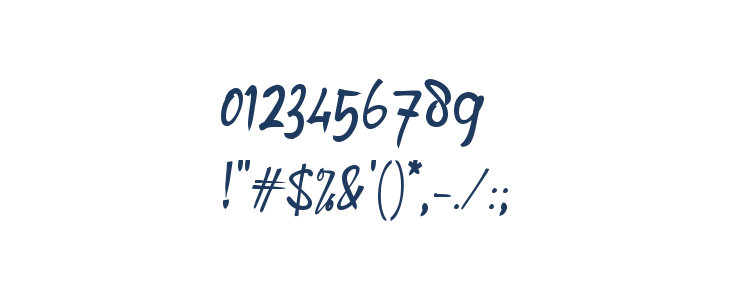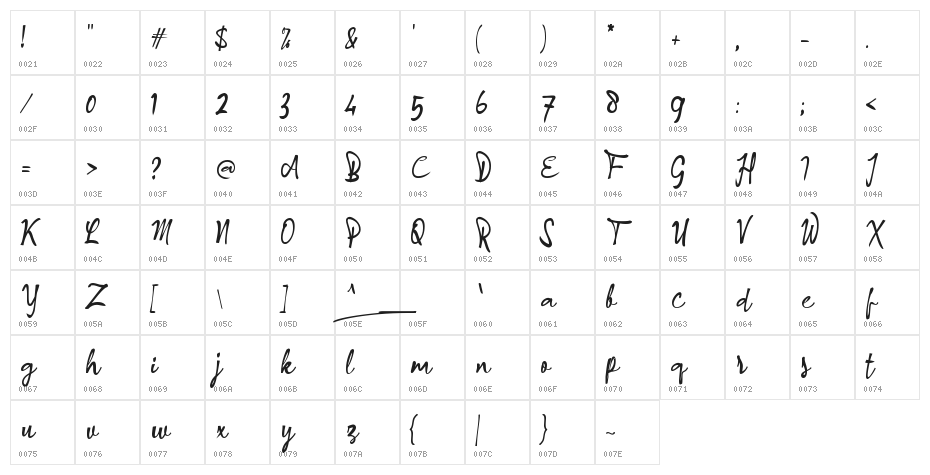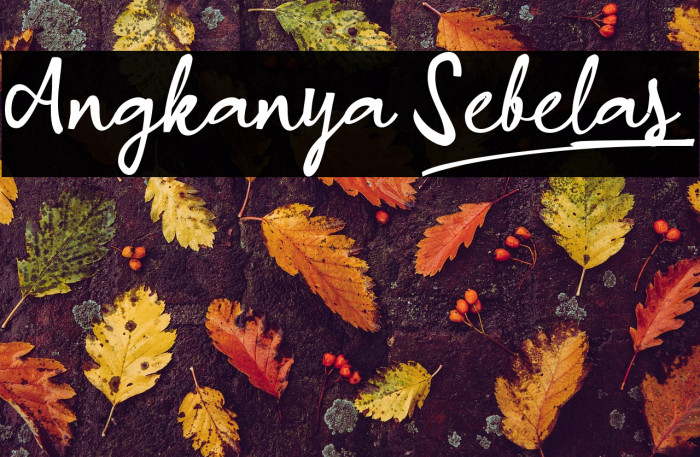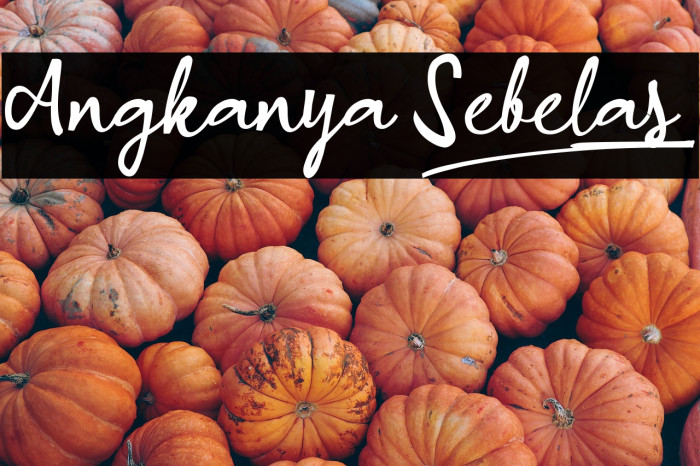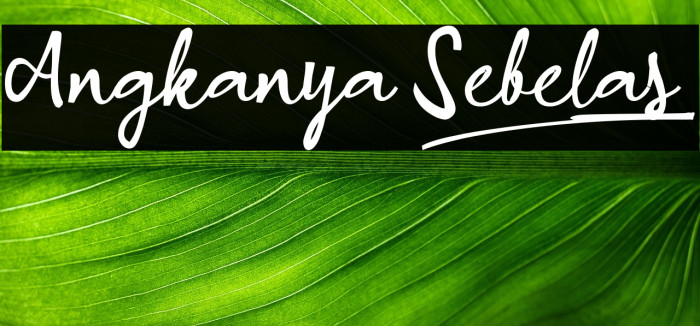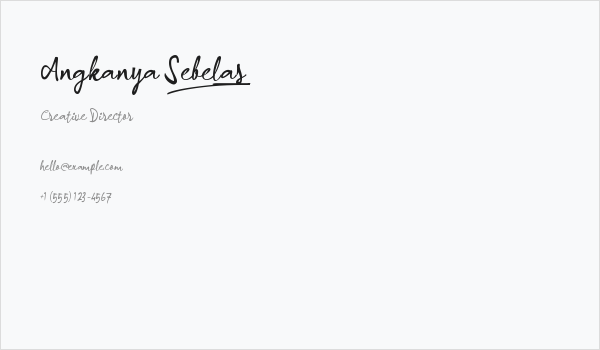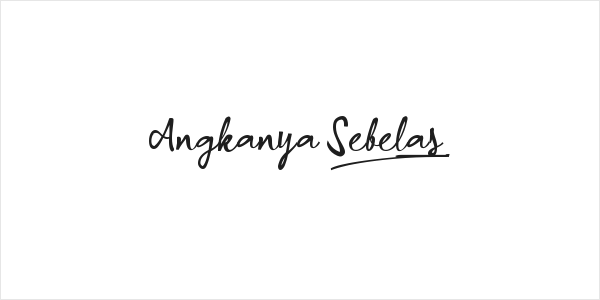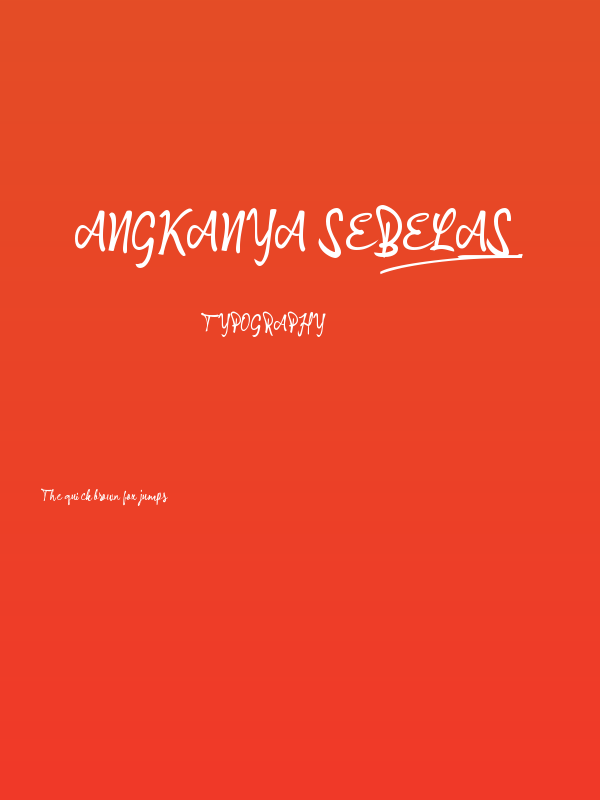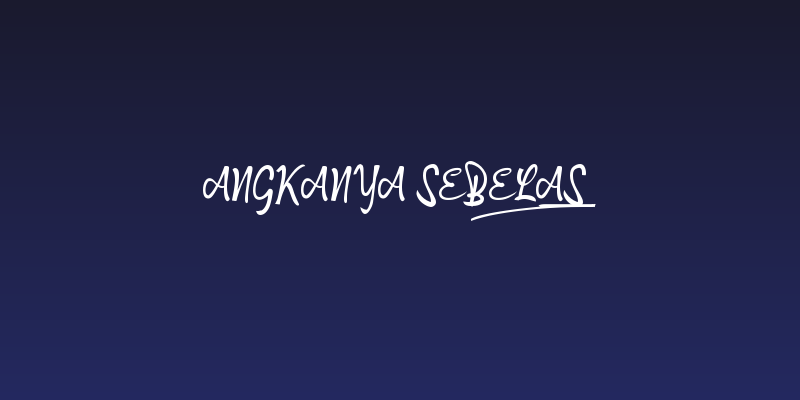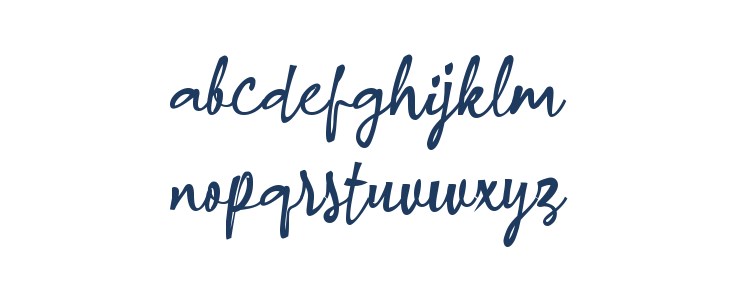
Angkanya Sebelas_ Font
Angkanya Sebelas_ Description
This font features a dynamic and energetic script style, characterized by its fluid and cursive letterforms. The uppercase letters exhibit a playful and slightly exaggerated flair, with varying stroke widths that add a sense of movement and rhythm. The lowercase letters maintain a consistent flow, complementing the uppercase with their smooth curves and loops. Numbers and special characters follow the same lively aesthetic, ensuring a cohesive look across all text elements. The overall impression is one of creativity and expressiveness, making it suitable for projects that require a personal and artistic touch.
| Use Case | Logos, Invitations, Artistic Posters |
| Proposed Projects | Ideal for creative projects such as invitations, greeting cards, branding, and artistic posters. |